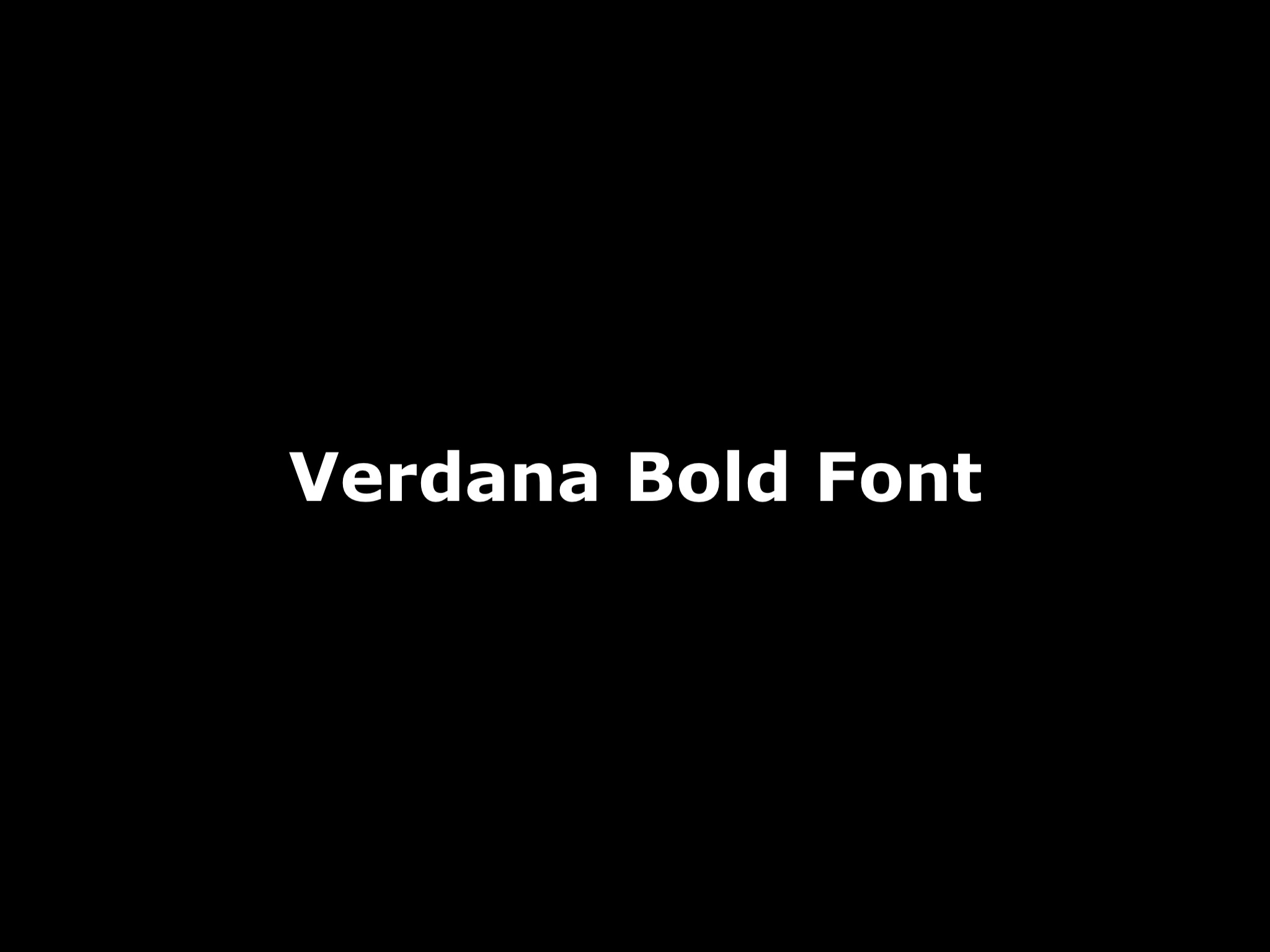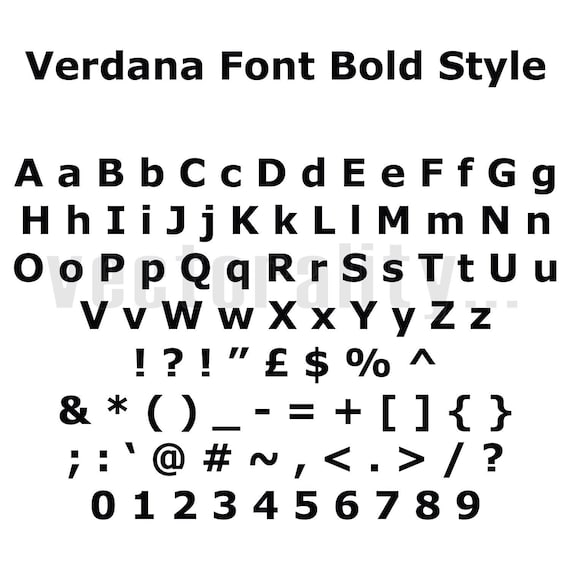
Verdana Bold Font
Verdana Bold Font - This font features a clean and modern sans. Verdana pro bold font download is available free from 8font.com. Download it for free from fontzone.net, a. Verdana bold is a sans serif font that can be used for commercial purposes. Verdana pro bold font is a popular, sans serif type font that can.
Download it for free from fontzone.net, a. Verdana pro bold font is a popular, sans serif type font that can. This font features a clean and modern sans. Verdana bold is a sans serif font that can be used for commercial purposes. Verdana pro bold font download is available free from 8font.com.
Download it for free from fontzone.net, a. Verdana pro bold font download is available free from 8font.com. Verdana bold is a sans serif font that can be used for commercial purposes. Verdana pro bold font is a popular, sans serif type font that can. This font features a clean and modern sans.
Download it for free from fontzone.net, a. Verdana bold is a sans serif font that can be used for commercial purposes. Verdana pro bold font download is available free from 8font.com. This font features a clean and modern sans. Verdana pro bold font is a popular, sans serif type font that can.
Download it for free from fontzone.net, a. Verdana pro bold font is a popular, sans serif type font that can. This font features a clean and modern sans. Verdana pro bold font download is available free from 8font.com. Verdana bold is a sans serif font that can be used for commercial purposes.
Verdana pro bold font download is available free from 8font.com. Verdana bold is a sans serif font that can be used for commercial purposes. Verdana pro bold font is a popular, sans serif type font that can. This font features a clean and modern sans. Download it for free from fontzone.net, a.
Verdana pro bold font download is available free from 8font.com. This font features a clean and modern sans. Download it for free from fontzone.net, a. Verdana bold is a sans serif font that can be used for commercial purposes. Verdana pro bold font is a popular, sans serif type font that can.
Download it for free from fontzone.net, a. This font features a clean and modern sans. Verdana pro bold font download is available free from 8font.com. Verdana pro bold font is a popular, sans serif type font that can. Verdana bold is a sans serif font that can be used for commercial purposes.
Verdana pro bold font is a popular, sans serif type font that can. Verdana bold is a sans serif font that can be used for commercial purposes. Download it for free from fontzone.net, a. Verdana pro bold font download is available free from 8font.com. This font features a clean and modern sans.
Download it for free from fontzone.net, a. This font features a clean and modern sans. Verdana bold is a sans serif font that can be used for commercial purposes. Verdana pro bold font is a popular, sans serif type font that can. Verdana pro bold font download is available free from 8font.com.
This font features a clean and modern sans. Verdana pro bold font download is available free from 8font.com. Verdana pro bold font is a popular, sans serif type font that can. Download it for free from fontzone.net, a. Verdana bold is a sans serif font that can be used for commercial purposes.
This font features a clean and modern sans. Verdana pro bold font download is available free from 8font.com. Download it for free from fontzone.net, a. Verdana pro bold font is a popular, sans serif type font that can. Verdana bold is a sans serif font that can be used for commercial purposes.
Verdana Bold Is A Sans Serif Font That Can Be Used For Commercial Purposes.
This font features a clean and modern sans. Download it for free from fontzone.net, a. Verdana pro bold font is a popular, sans serif type font that can. Verdana pro bold font download is available free from 8font.com.